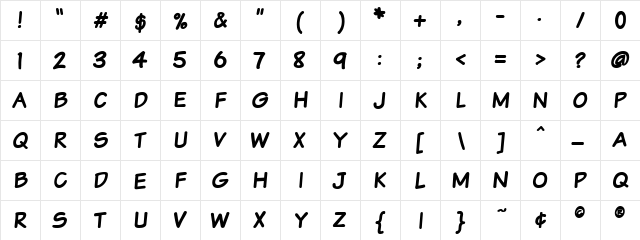
VTCSundaykomixcaps Bold Font Preview
VTCSundaykomixcaps Bold
VTCSundaykomixcaps Bold Font Details
| Designer | WolfBainX |
Design Context for VTCSundaykomixcaps Typeface
VTCSundaykomixcaps is a composed and adaptable typeface that performs quietly and consistently across a wide range of design contexts. Its bold stroke weight gives it real presence on the page.